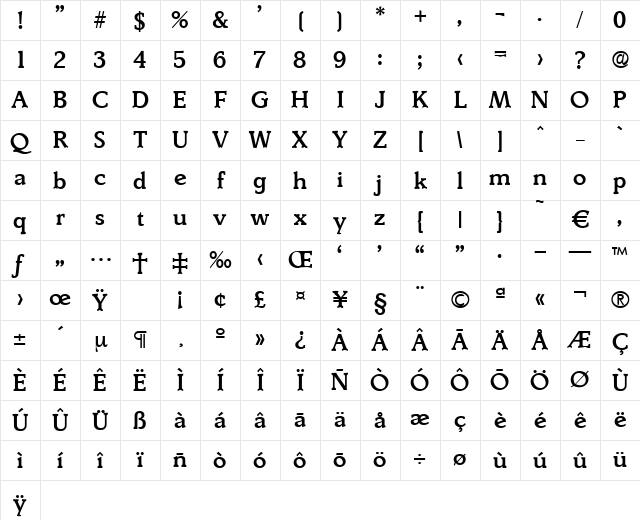
Derringer-Medium Regular
Design Context for Derringer-Medium
Derringer-Medium is a composed and adaptable typeface that performs quietly and consistently across a wide range of design contexts.
Pro Tip: Use Derringer-Medium in both headline and body roles to test its range before committing to a single application.